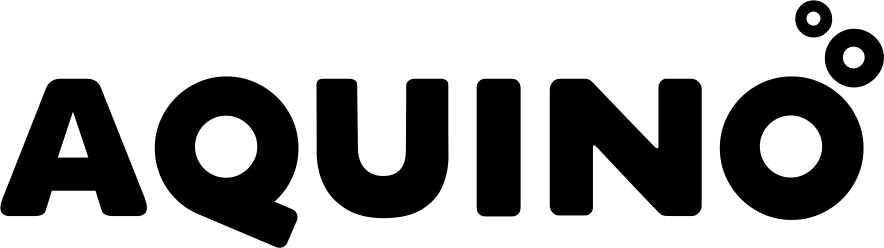
Aquino Font
Aquino is informal, friendly, and bold. It is a sans serif font that helps you make your brand appear as an approachable, modern one to your target audience. Aquino makes the best choice to use whenever you want your tex…
Aquino is informal, friendly, and bold. It is a sans serif font that helps you make your brand appear as an approachable, modern one to your target audience.
Aquino makes the best choice to use whenever you want your texts to make contact with everyone and sound casual. It comes with uppercase letters and general punctuation only. You can use Aquino in flyers, posters, website interfaces, app projects, and so on!